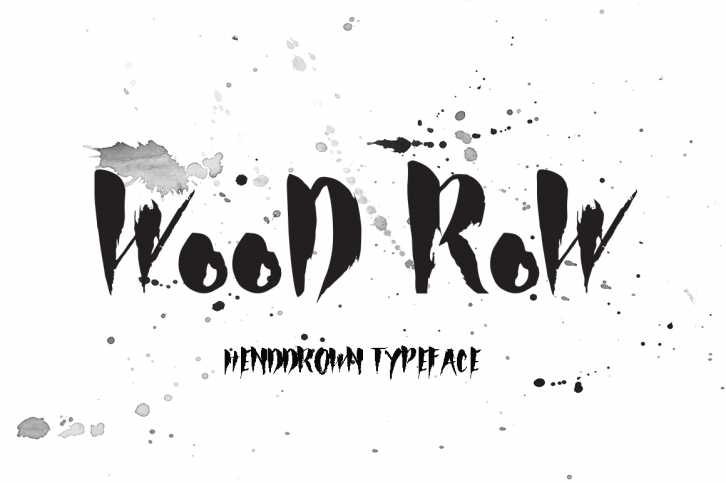
WooD RoW is a trendy and unique font with an authentic style. It was designed by Dantico and it's a great choice for creative people who need such a font. It was released on November 18, 2016 and the file size is 11.18 MB. WooD RoW will add an organic vibe to any design idea!